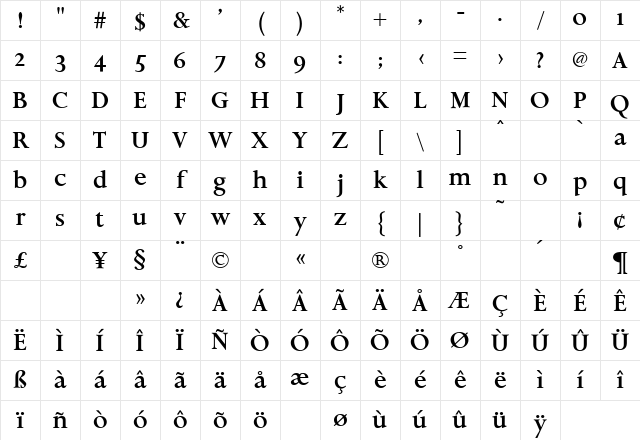
Aries Bold
Foundry: by Panache Typography,
Aries Family
Aries Bold
Complete Aries Bold glyph index. Displaying only characters natively supported by Aries Bold font.
Design Context for Aries
Aries is a composed and adaptable typeface that performs quietly and consistently across a wide range of design contexts. Its bold stroke weight gives it real presence on the page.
Who designed the Aries Bold font?